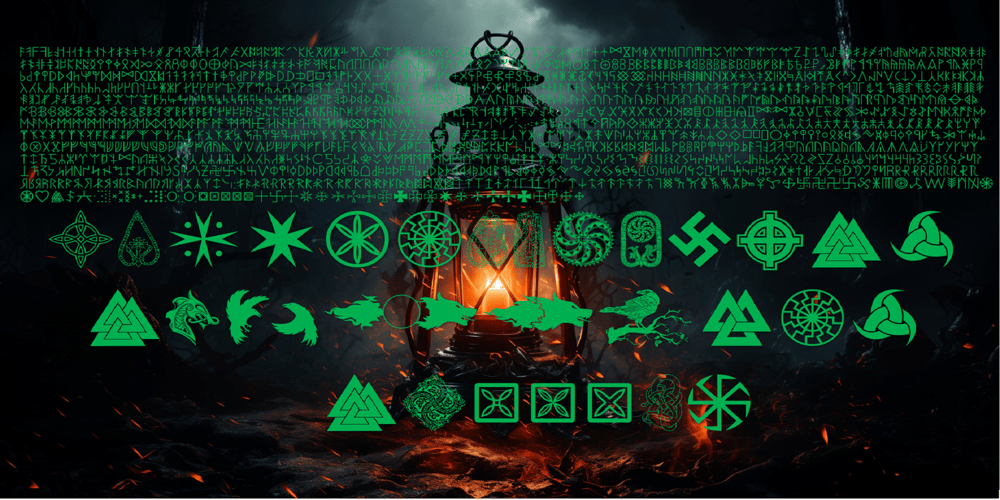
Ongunkan Runic All Letters Font Family was designed by Osman Nuri ALKAN and published by Runic World Tamgacı. Ongunkan Runic All Letters contains 1 styles and family package options. It took me 3 months to develop this runic font. I added all the variants of the runic script that I could find as a result of my research to this font. The Latin keyboard has Anglo-Saxon letters. Unicode characters are also added and can be used with a virtual keyboard. All other characters were added to characters of different languages because there was not enough character space. For this reason, you can click on the insert symbol from the insert section in the Word program, select the font and add the characters from there. Runic writing has a very rich variety of letters. It might interest you. Some letters may appear 2 or 3 times. This is because I added runes letter by letter to the font. There are also quite a few font versions. The letter that makes a d sound in Anglo-Saxon may be the letter that makes a y sound in Elder Futhark. Punctuation marks are very diverse. If you need help with fonts, contact me here. ongunkan@gmail.com